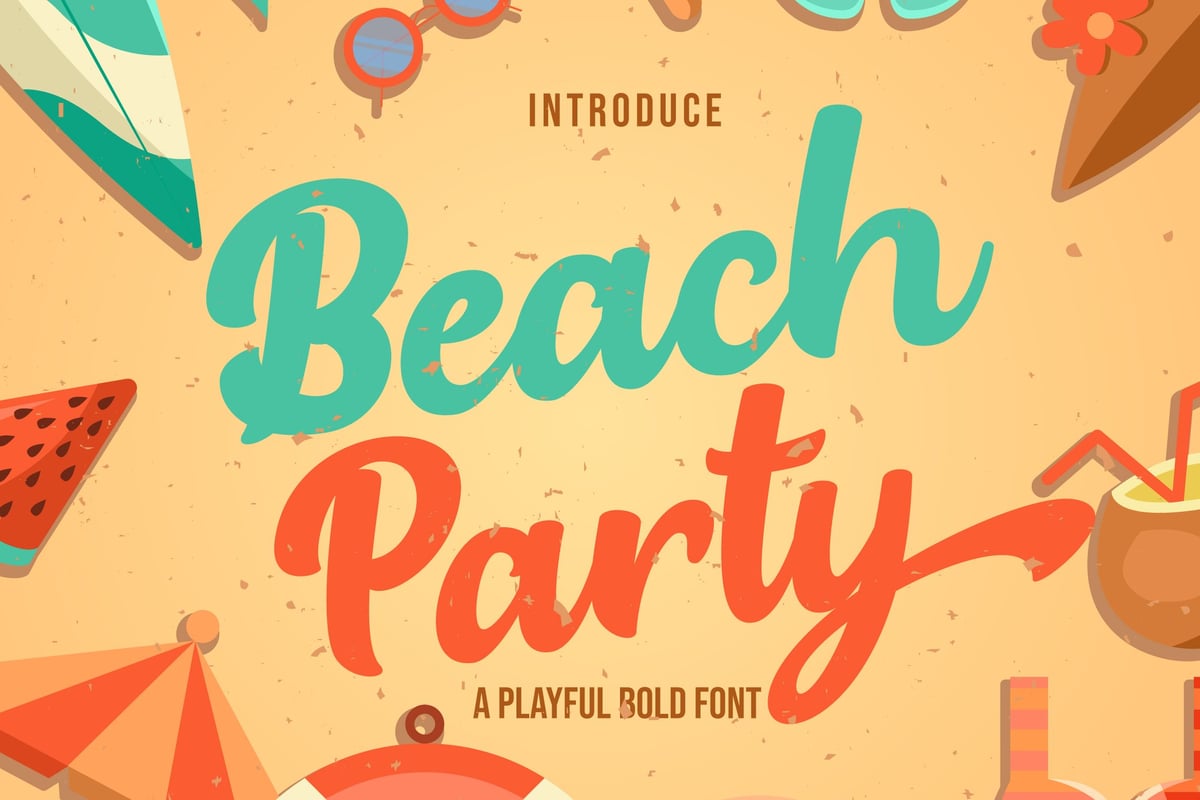
Beach Party - Playful Bold Font
Bold, bouncy, and full of summer energy — Beach Party is the playful script font your designs have been waiting for.
Beach Party is a fun and expressive bold script typeface that brings warmth and personality to any creative project. Its lively letterforms are perfectly suited for a wide range of design applications:
- Greeting cards and invitations
- Branding materials and business cards
- Quotes and posters
- And much more!